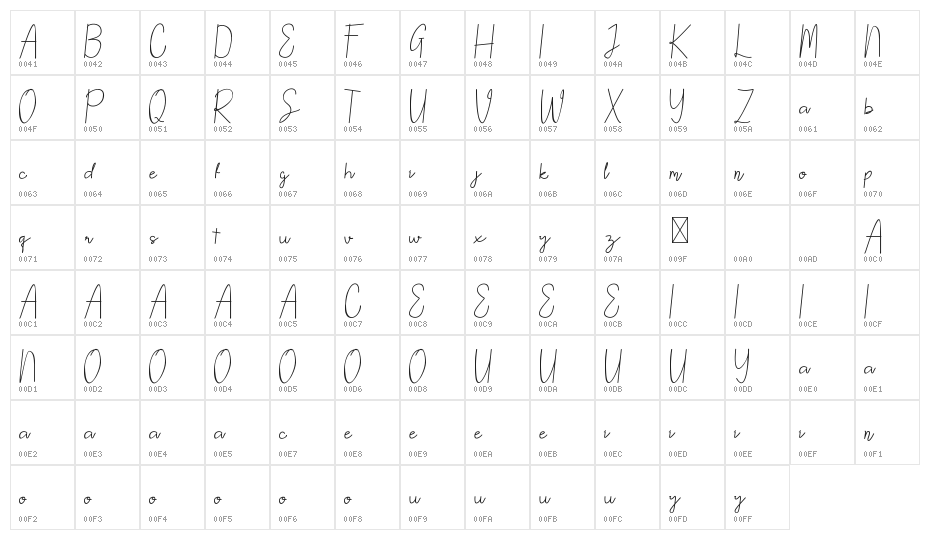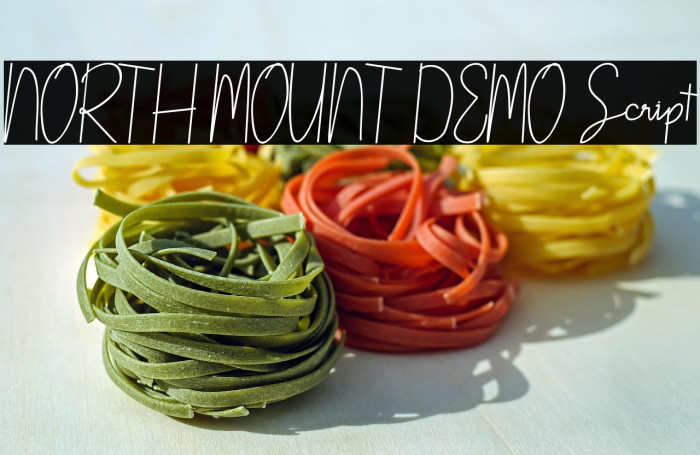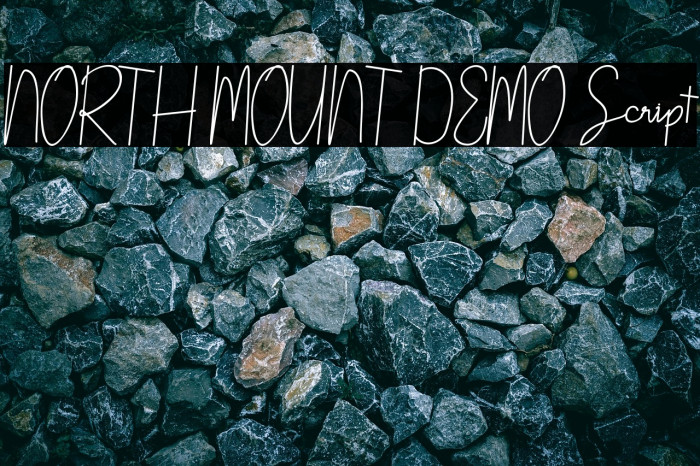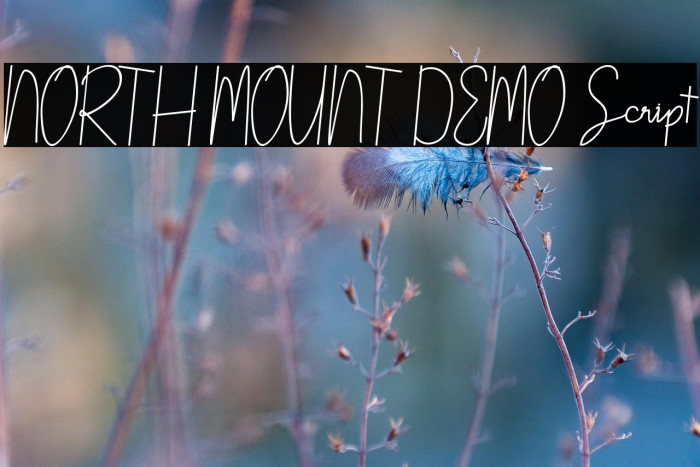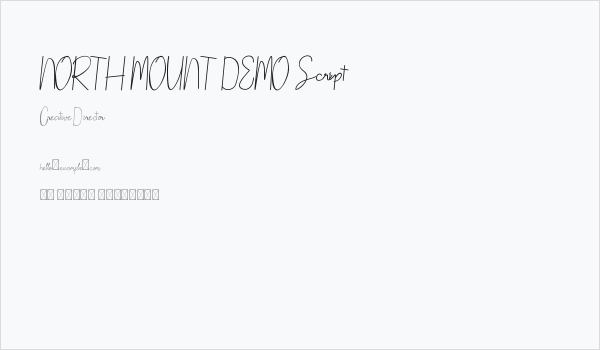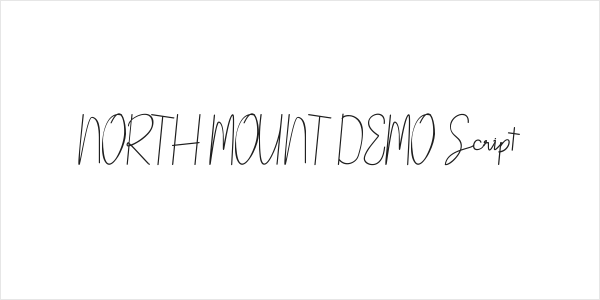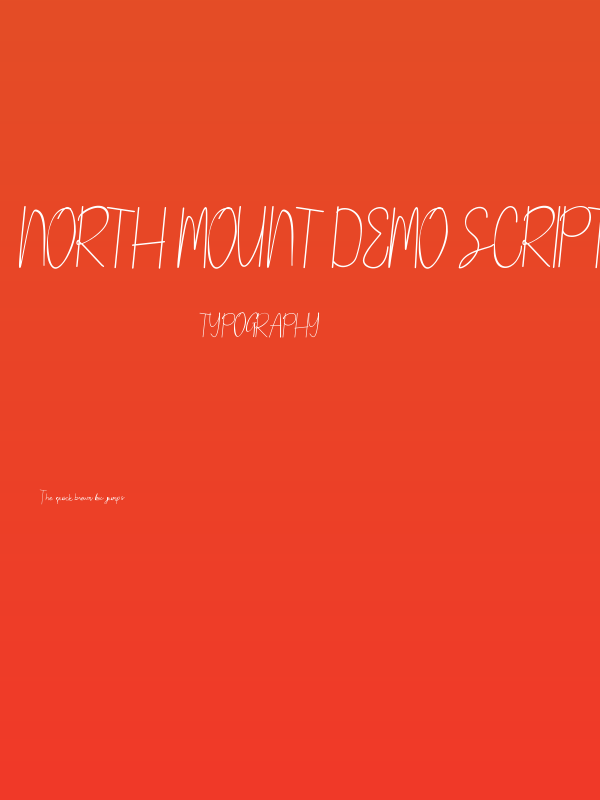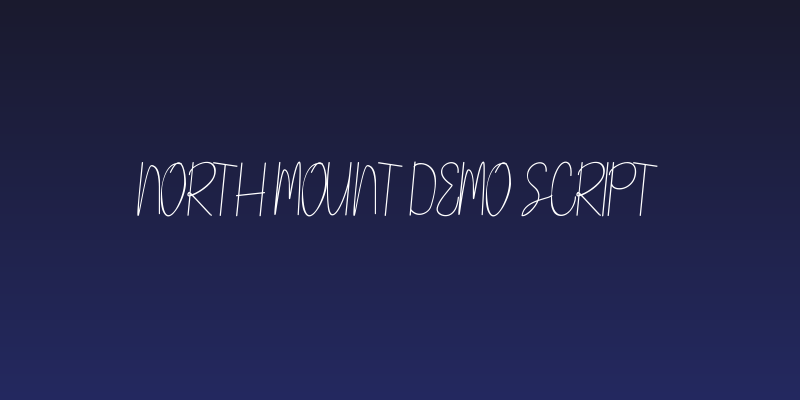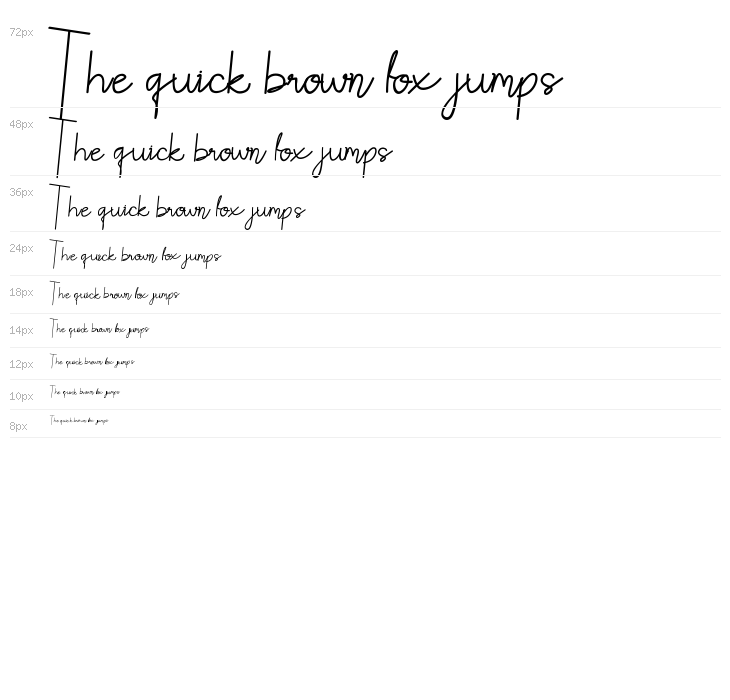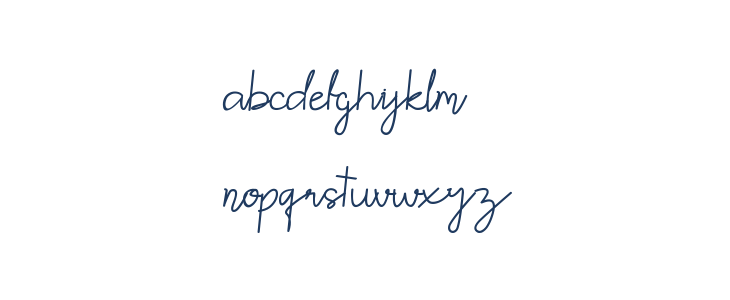
NORTH MOUNT DEMO Script Font
NORTH MOUNT DEMO Script Description
This font features a playful and whimsical script style with tall, narrow characters. The uppercase letters are elongated with a distinct hand-drawn quality, while the lowercase letters maintain a consistent flow, adding to its casual and artistic appearance. The strokes are thin and delicate, giving it a light and airy feel. The font's unique character is further emphasized by its irregular baseline and varying letter heights, which contribute to its dynamic and lively aesthetic. This font is ideal for projects that require a personal touch or a creative flair.
| Width | Condensed |
| Use Case | Logos, Headlines, Creative projects |
| Proposed Projects | Ideal for greeting cards, invitations, personal branding, and creative projects that require a unique, artistic touch. |